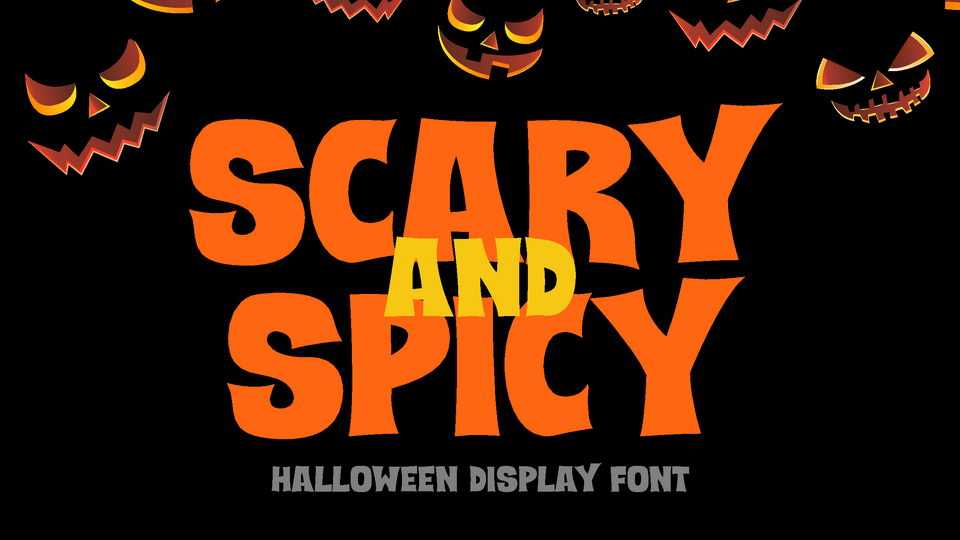
Download Scary and Spicy font, a fun and bold display typeface for Halloween event, Scary movie poster and flyer, monster themed online games, poster, movie title, fast food menu, magazine, youtube covers, youtube thumbnails, social media page covers and so on…